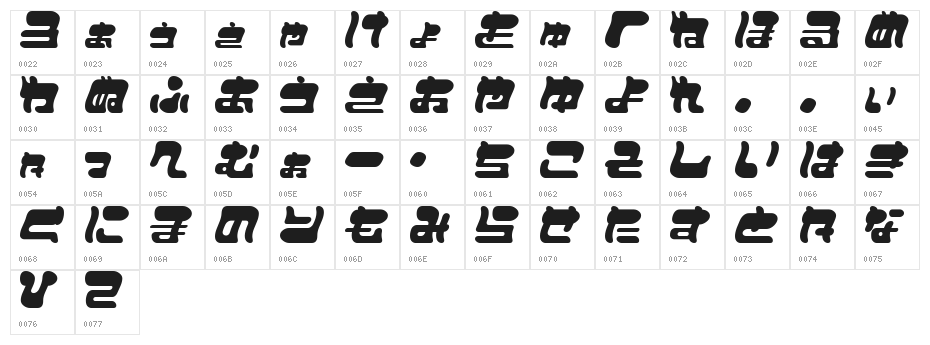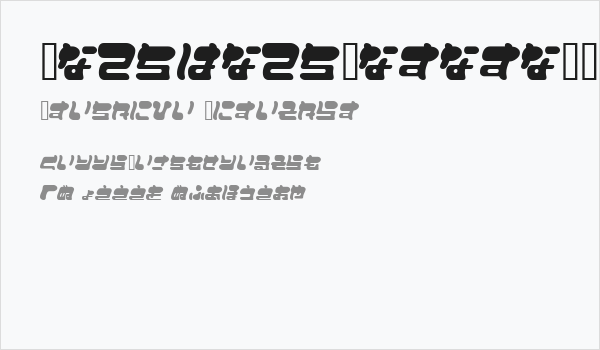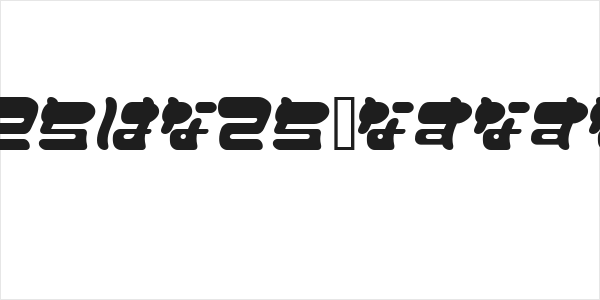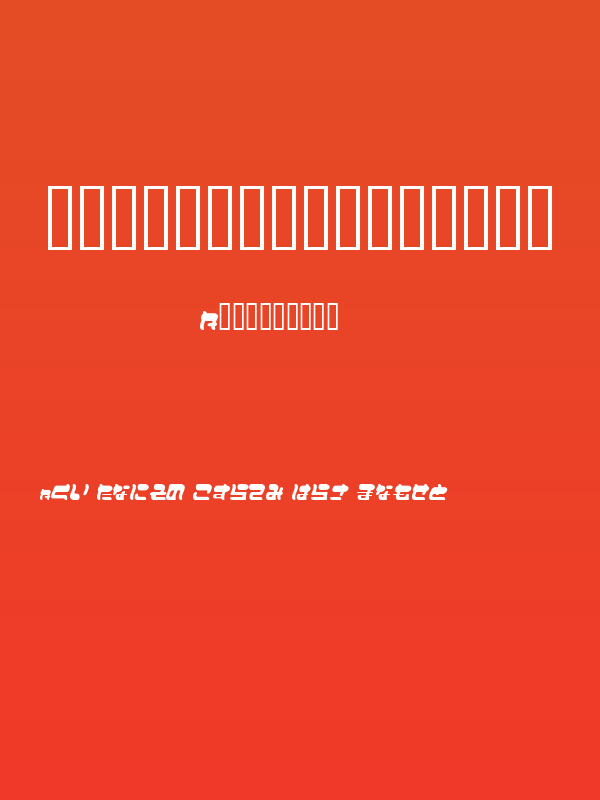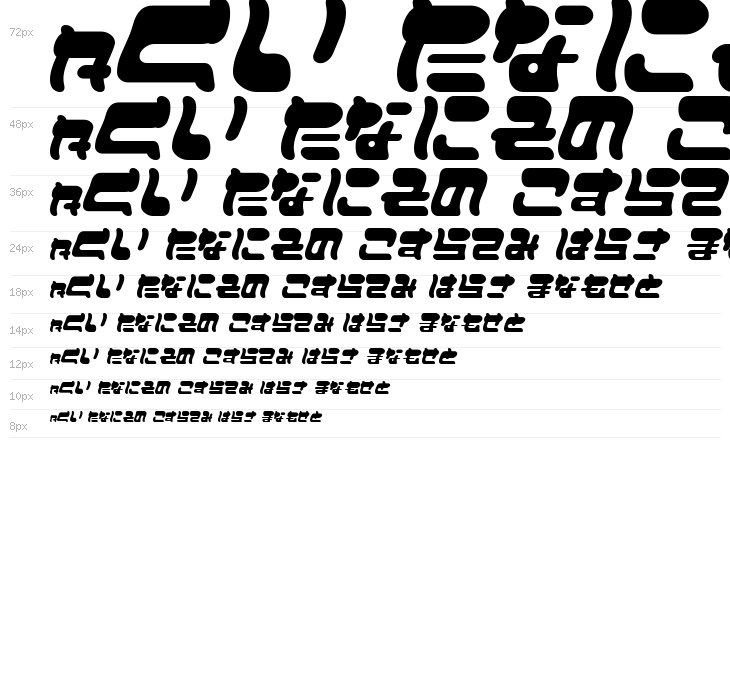
FuwafuwaFururuHW Font
FuwafuwaFururuHW Description
This font features a playful and whimsical design, characterized by its rounded and bubbly letterforms. The characters exhibit a bold and thick stroke, giving them a substantial presence on the page. The style is reminiscent of a cartoonish or comic aesthetic, with each letter having a unique flair that adds to the overall charm. The font maintains a consistent weight throughout, ensuring readability while still offering a distinctive and fun appearance. Its informal and lively nature makes it suitable for creative and lighthearted projects.
Overall StylePlayful, Whimsical
Proposed ProjectsIdeal for children's books, comic strips, playful branding, and party invitations.